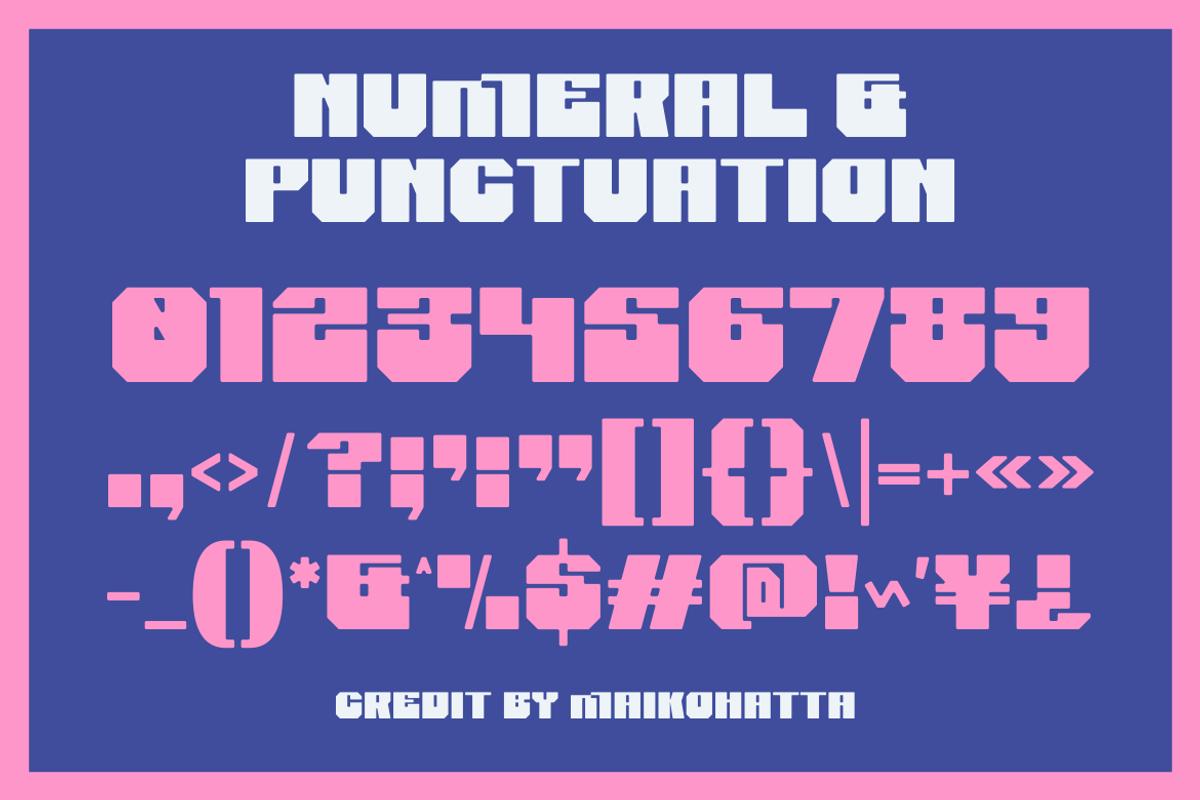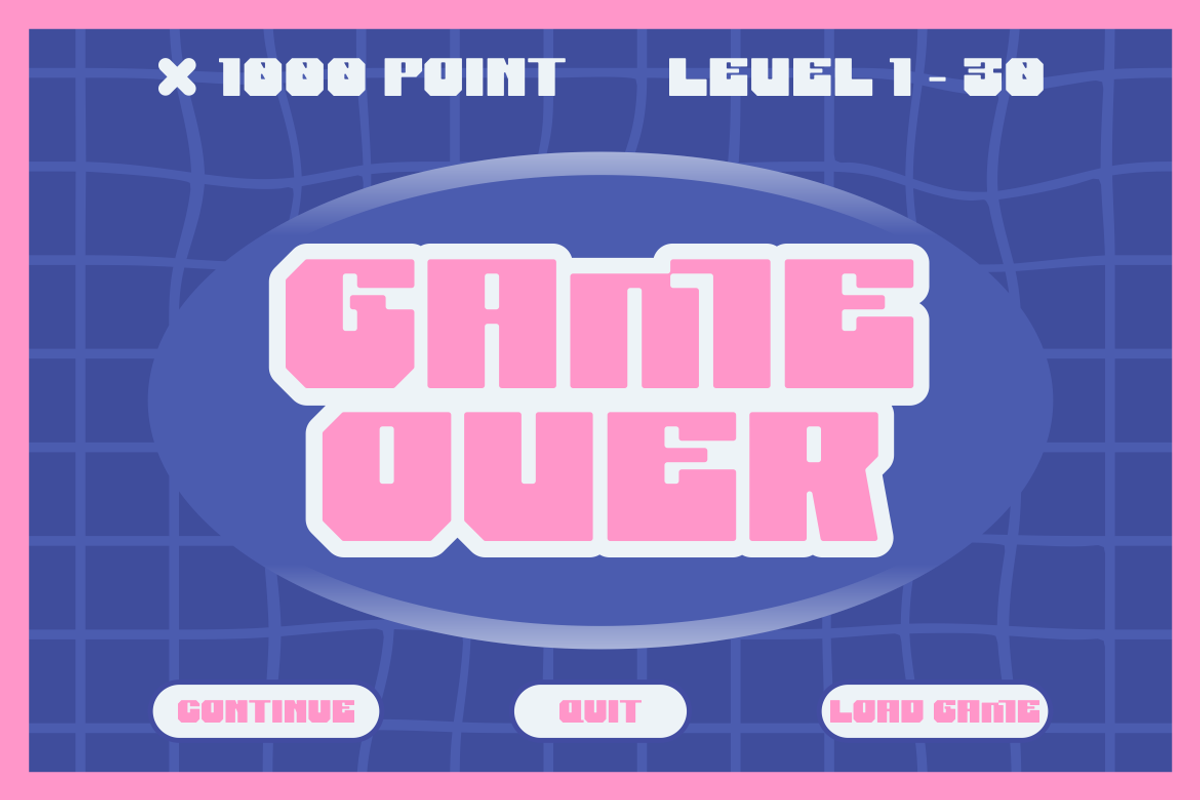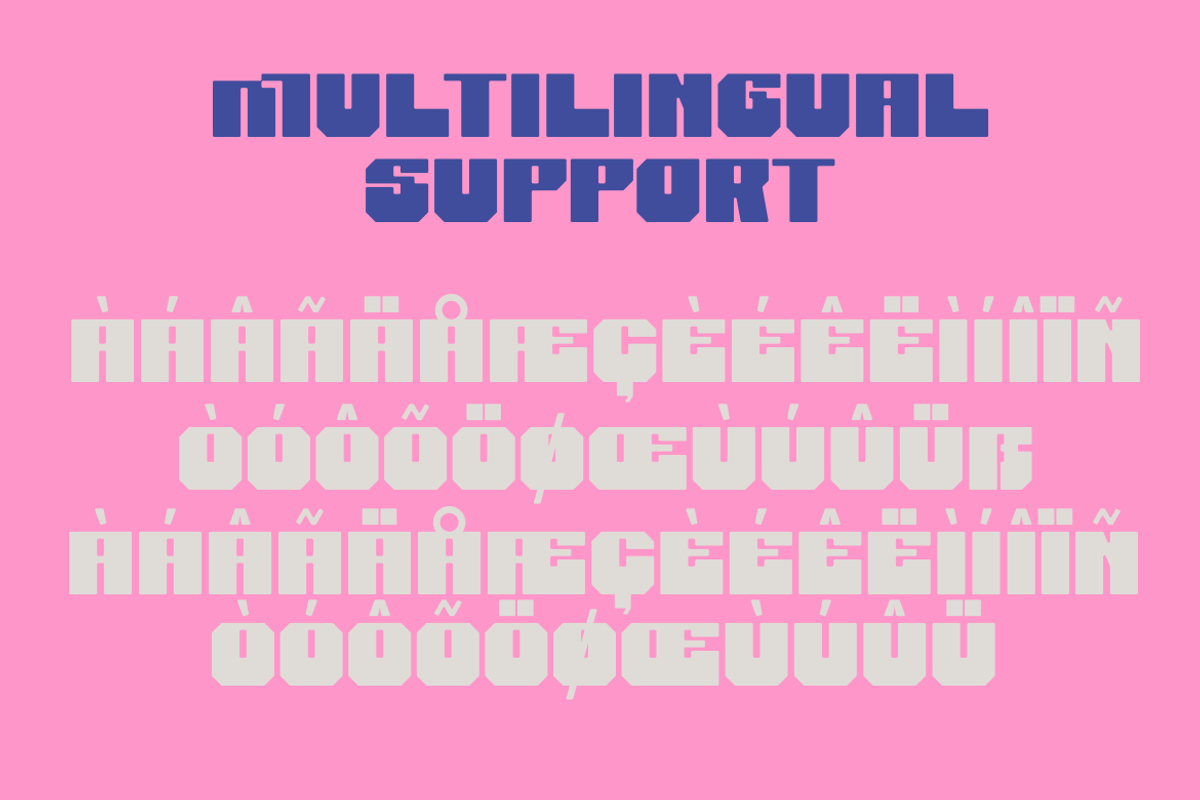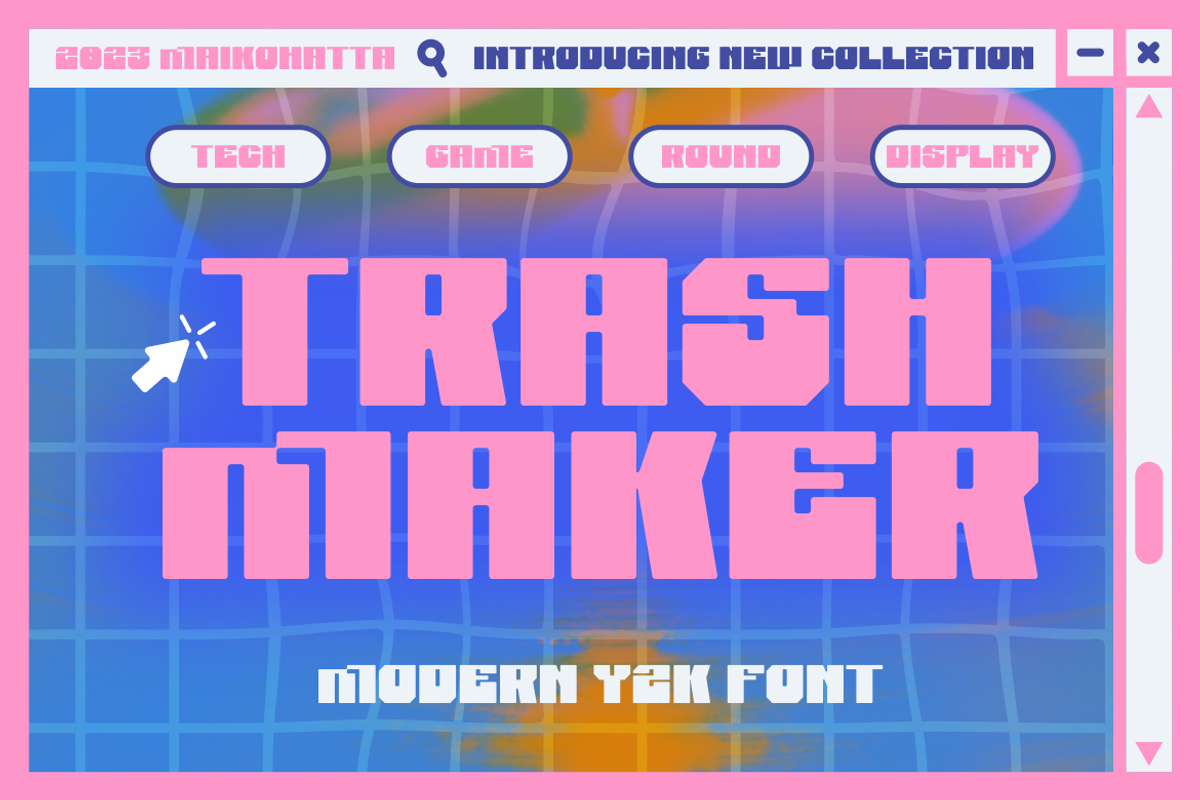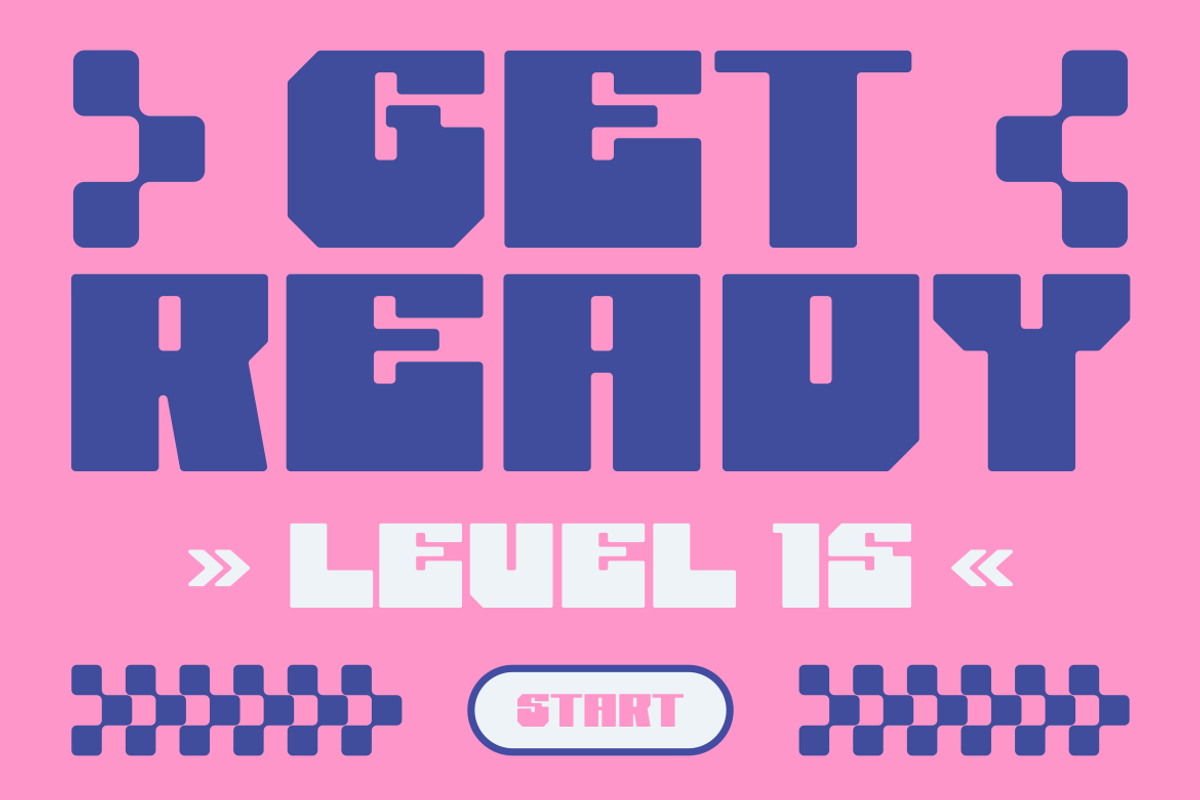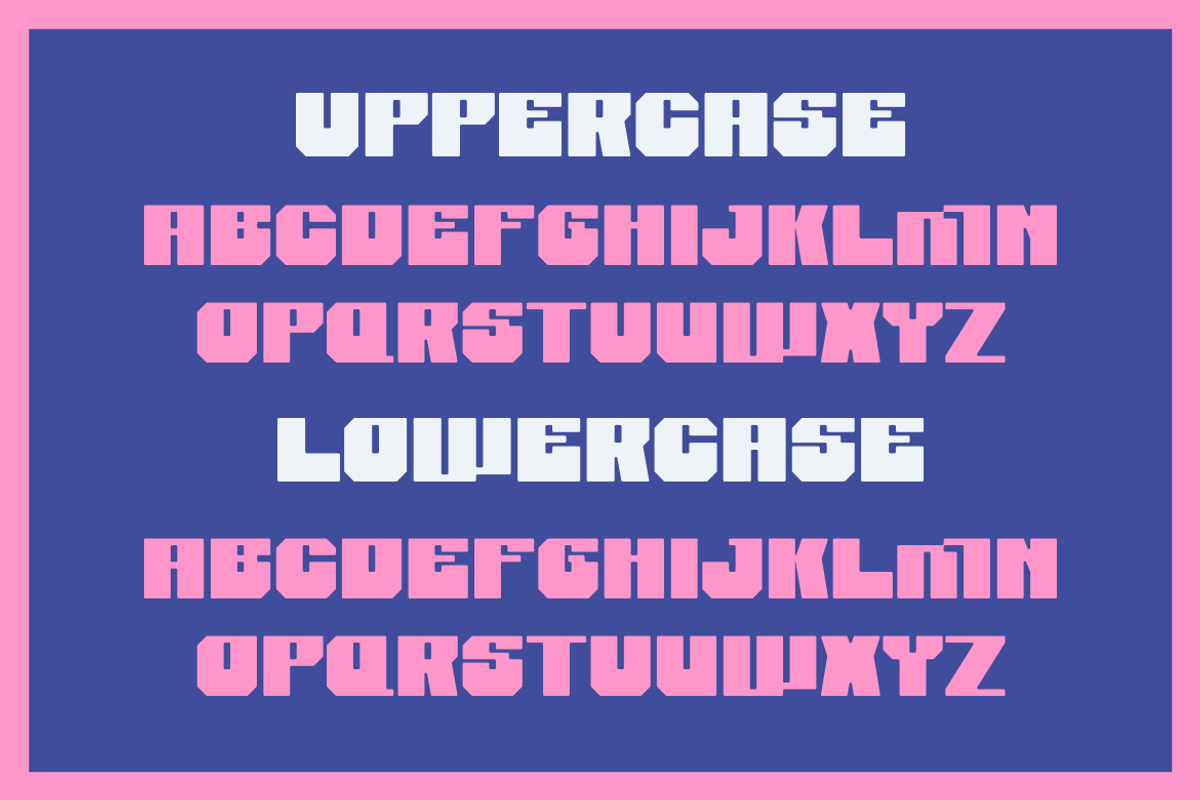
Trash Maker - Modern Y2k Font
Introducing our new product Trash Maker - Modern Y2k Font
Trash Maker is a visual representation of the Y2K (2000) aesthetic featuring futuristic style, technology, and digital elements from the early 2000's. This font incorporates elements such as old computer displays, pixels, neon, and geometric shapes that are reminiscent of the technological developments of the time.